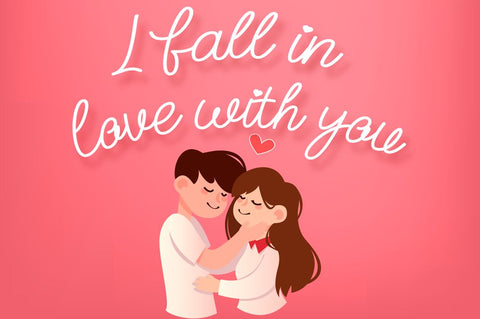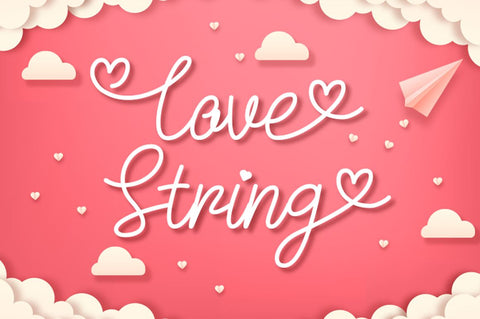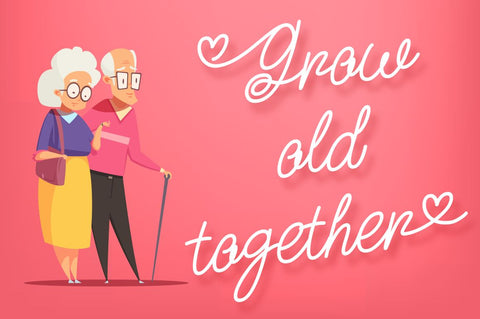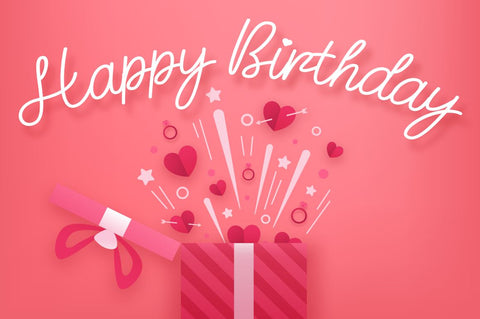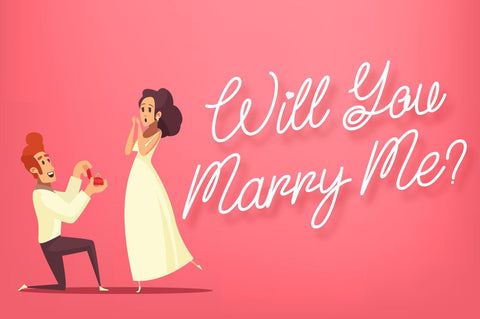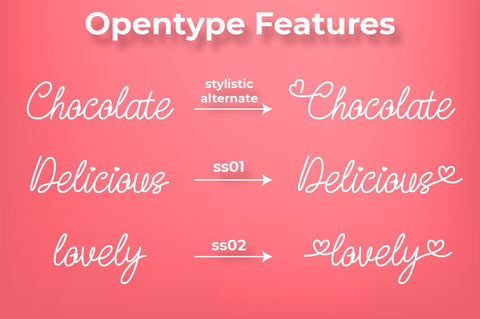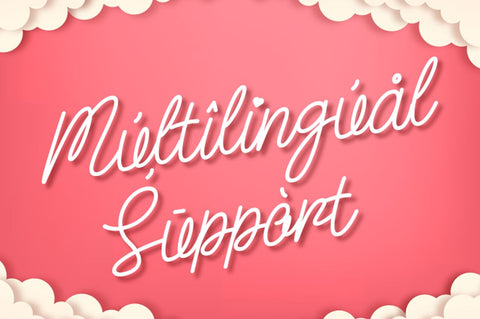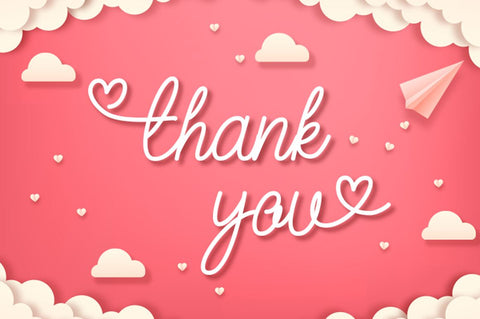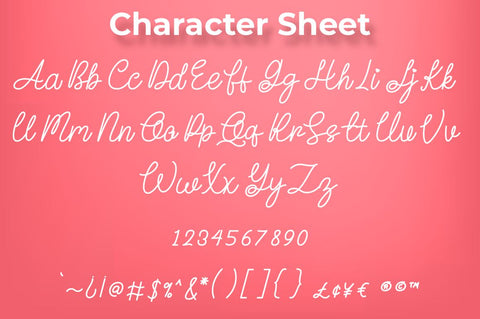
Love String - Script Font
Love String is lovely display font, including stylistic alternates that perfect for any combination for your design.
Love String perfectly macth for desgign with valentine theme, any product like book cover, t-shirt, branding, promotion, social media post, quotes, wedding, photography and more.